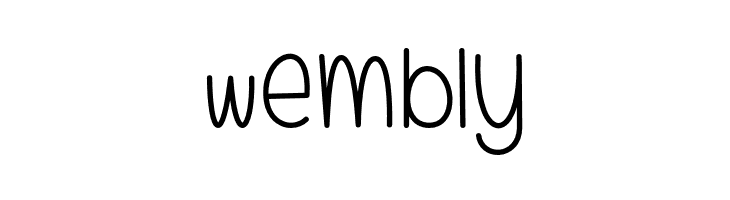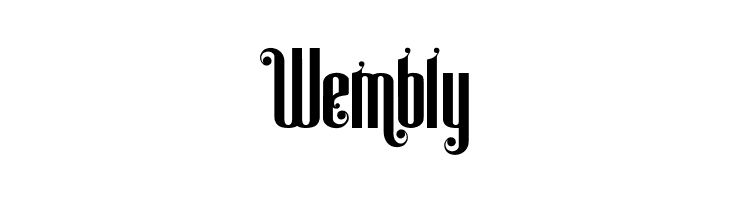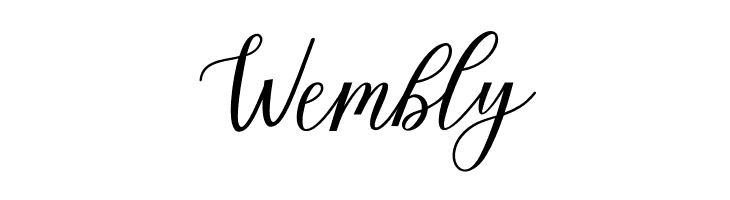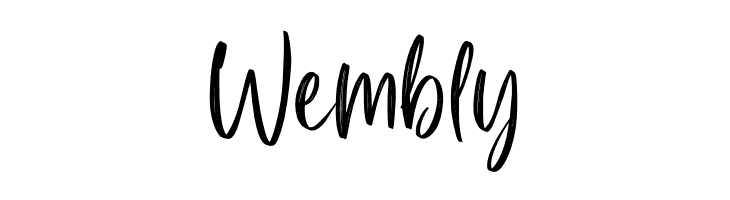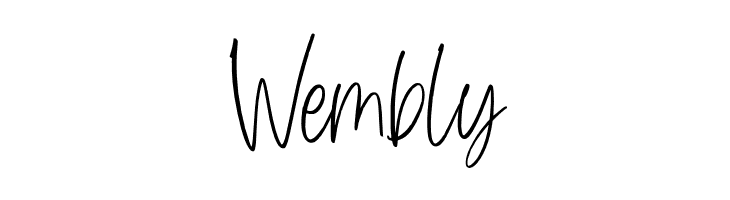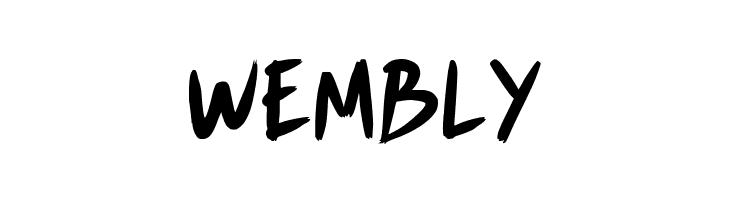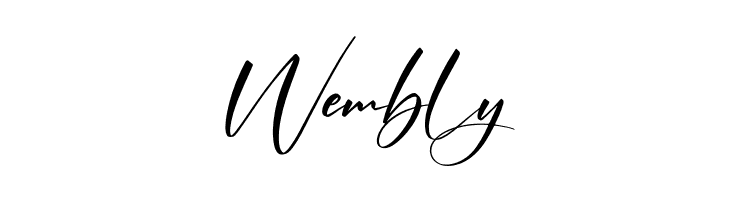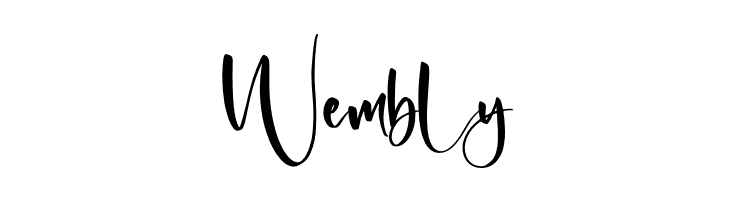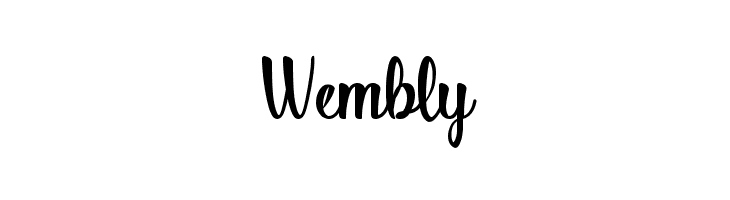
• AlisandraScript
An elegant and flowing script font with ornate curves and flourishes.
• alise
• ALISEO
• Alisha
A playful, handwritten font with a whimsical and casual style.
• Alisha
A flowing, cursive handwritten font with elegant connections and smooth strokes.
• Alishader Demo
A classic and elegant script font with flowing, connected letterforms.
• Alishakey
A dynamic and expressive script font with fluid, cursive strokes.
• Alishakey Italic
A dynamic and elegant script font with flowing cursive letterforms.
• Alishanty
A lively, handwritten script font with fluid, cursive strokes.
• Alishanty Italic
A cursive, handwritten font with a fluid, italic style.
• Alishanty Signature
An elegant, cursive font with sweeping curves and stylish flourishes.
• Alishia Erittha
Elegant handwritten script font.
• Alisios Regular
A bold, decorative font with a wave-like pattern, perfect for eye-catching designs.
• Alisking Personal Use
A lively handwritten font with fluid, dynamic strokes and a playful appearance.
• Alisky-Regular
A playful, handwritten font with a casual and informal style.
• Alison finch
A tall, narrow font with high contrast, perfect for elegant and modern designs.
• Alison Regular
• Alissa Monogram
A whimsical and decorative font with floral and heart motifs.
• Alissian Personal Use
A bold, handwritten font with a casual and artistic style.
• Alista Delita